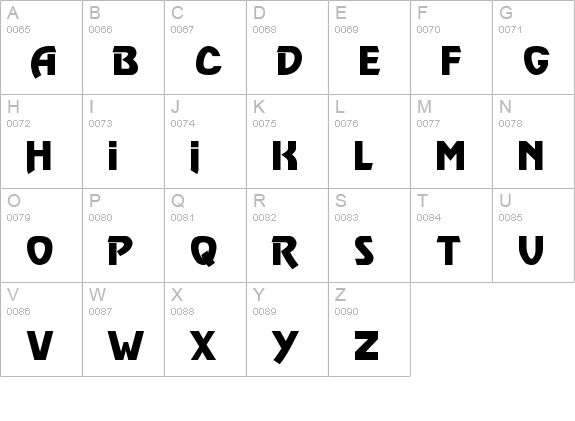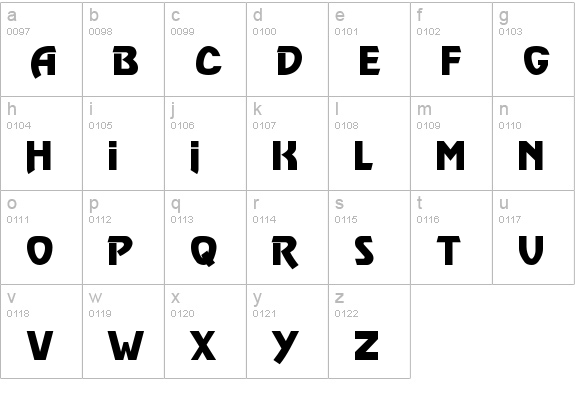
Vulgar Display Regular Font Details
Vulgar Display Regular is the standard, neutral variant in the Vulgar typeface family \xE2\x80\x94 well suited to general body text, paragraphs, and standard typographic work.
Vulgar Display Regular font is a striking and bold typeface that embodies the essence of rebelliousness and raw energy. With its sharp edges and powerful letterforms, this font demands attention and makes a statement like no other. Whether used for headlines, posters, or logos, Vulgar Display Regular font adds a touch of attitude and edginess to any design. One of the best things about Vulgar Display Regular font is that it is freely available to download at FontsMarket.com. This means that you can easily access and use this font for your creative projects without any hassle or cost. It's a fantastic opportunity to add a touch of boldness and uniqueness to your designs, all while keeping your budget intact. Designed with versatility in mind, Vulgar Display Regular font is perfect for various design applications. Its bold and commanding presence makes it ideal for music-related projects, such as album covers, band logos, and concert posters. It also works well for sports-themed designs, gaming graphics, and any other projects that require a strong visual impact. The character set of Vulgar Display Regular font includes uppercase and lowercase letters, numerals, punctuation marks, and special symbols. Its clean and legible design ensures that your messages are easily readable, even in smaller sizes or on different backgrounds. With Vulgar Display Regular font, you can unleash your creativity and make a bold statement. Its free availability on FontsMarket.com allows you to explore and experiment with this font without any limitations. So go ahead, download Vulgar Display Regular font today and let your designs speak loudly and confidently.